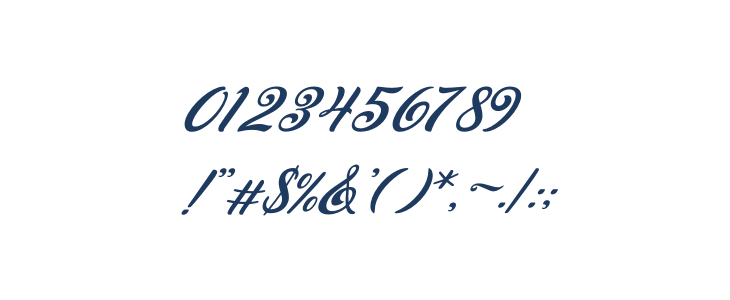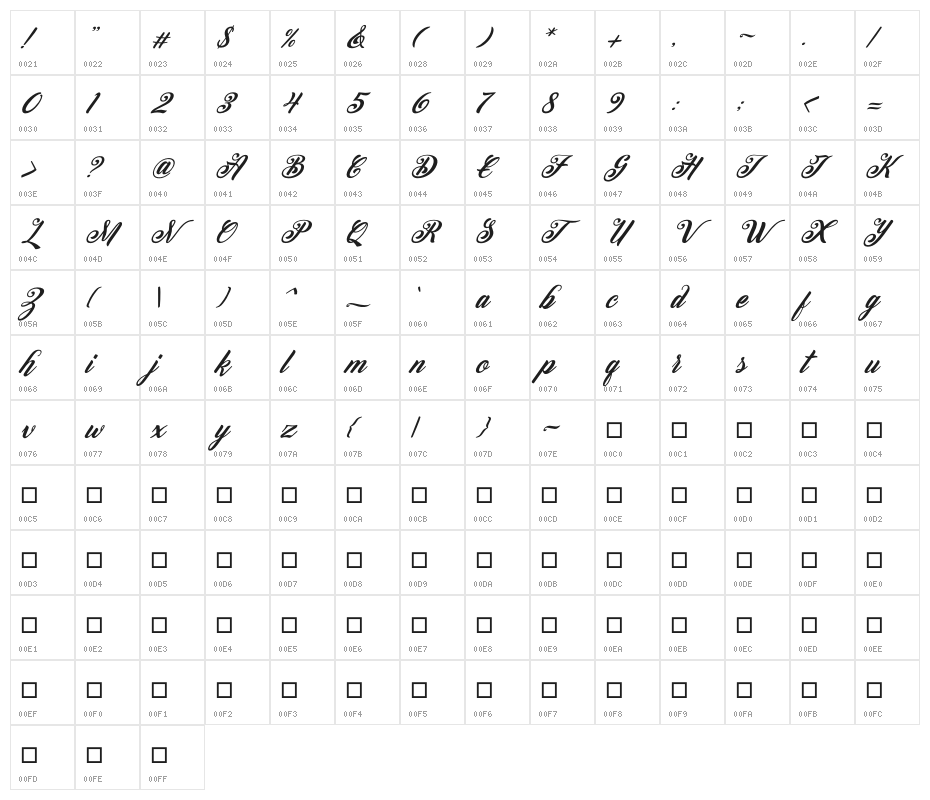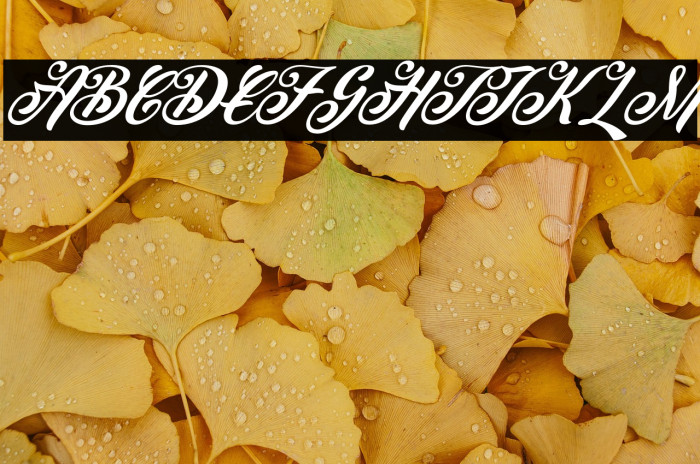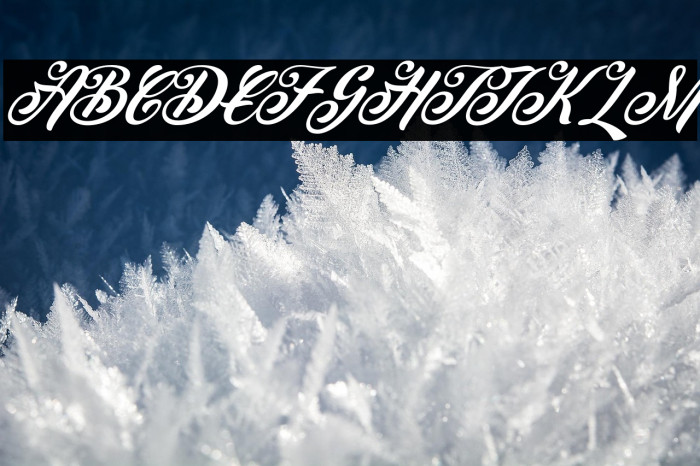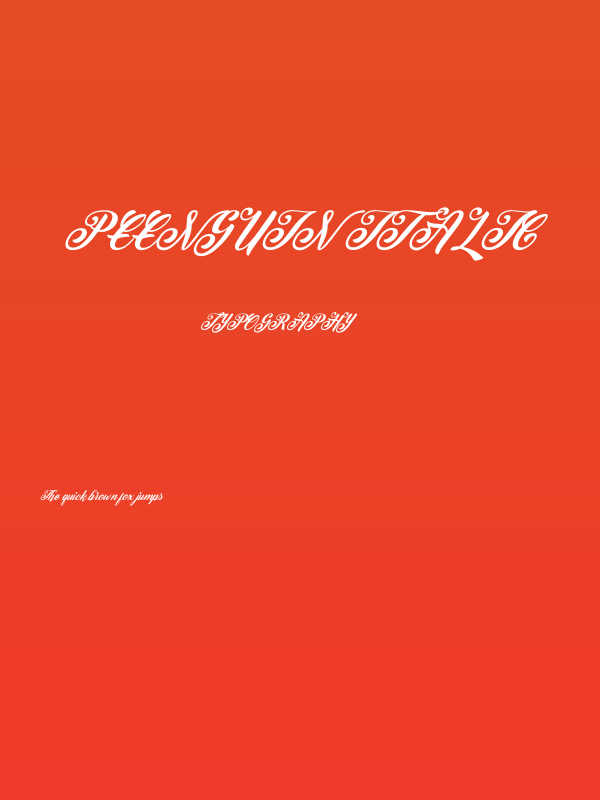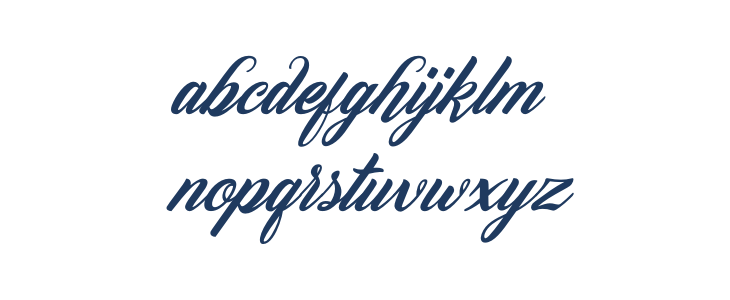
Peenguin Italic Font
Peenguin Italic Description
This font features an elegant and flowing script style, characterized by its cursive, italicized letters. The uppercase letters are ornate and connected, giving a sense of sophistication and fluidity. The lowercase letters maintain a consistent slant, enhancing the script's graceful appearance. Numbers and special characters are designed to match the overall aesthetic, with swirls and curves that complement the letters. The font's bold strokes and high contrast between thick and thin lines add to its decorative appeal, making it suitable for projects that require a touch of elegance and flair.